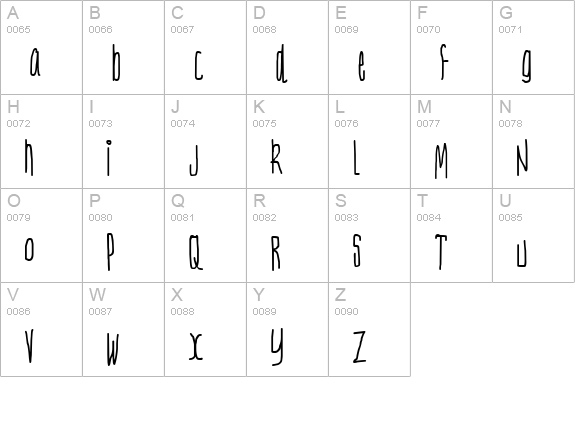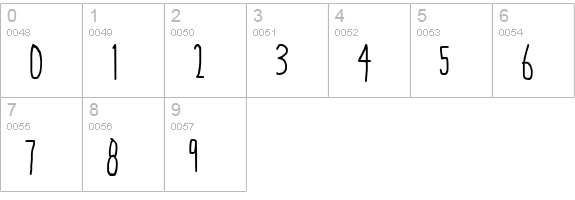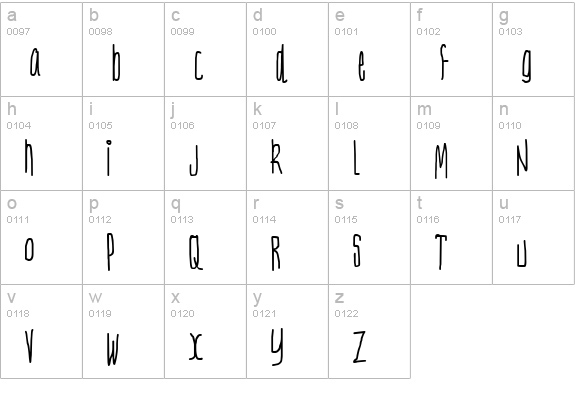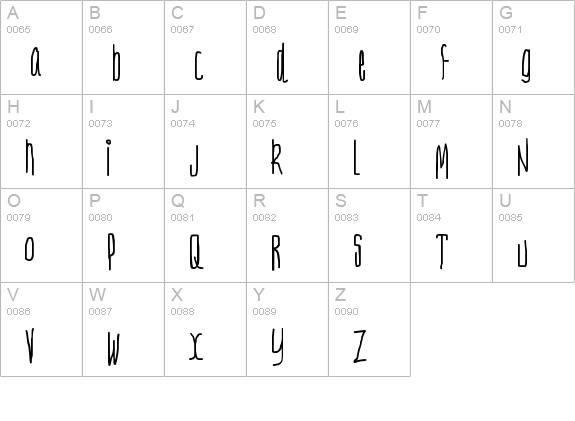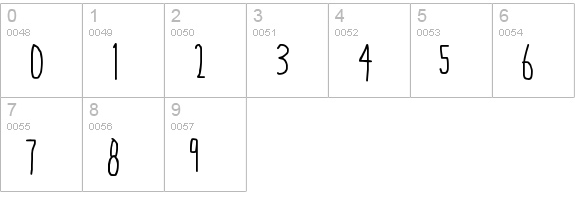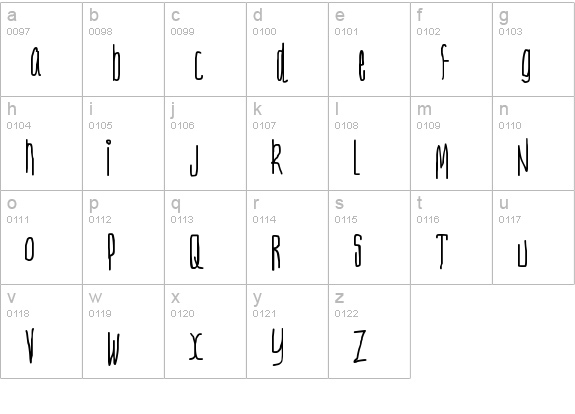
Nerve Tonic Font Details
Nerve Tonic font is a captivating and modern typeface that exudes a sense of elegance and sophistication. With its sleek and stylish design, this font is perfect for adding a touch of flair to any project. The clean lines and unique curves of Nerve Tonic font make it a versatile choice for a wide range of design applications, from branding to editorial design. What's even better is that Nerve Tonic font is available for free download at FontsMarket.com. This means that you can easily access this stunning font and incorporate it into your projects without any hassle. Whether you're working on a personal project or a client's design, Nerve Tonic font is sure to make a lasting impression. So don't miss out on the opportunity to enhance your designs with this beautiful and free font today!